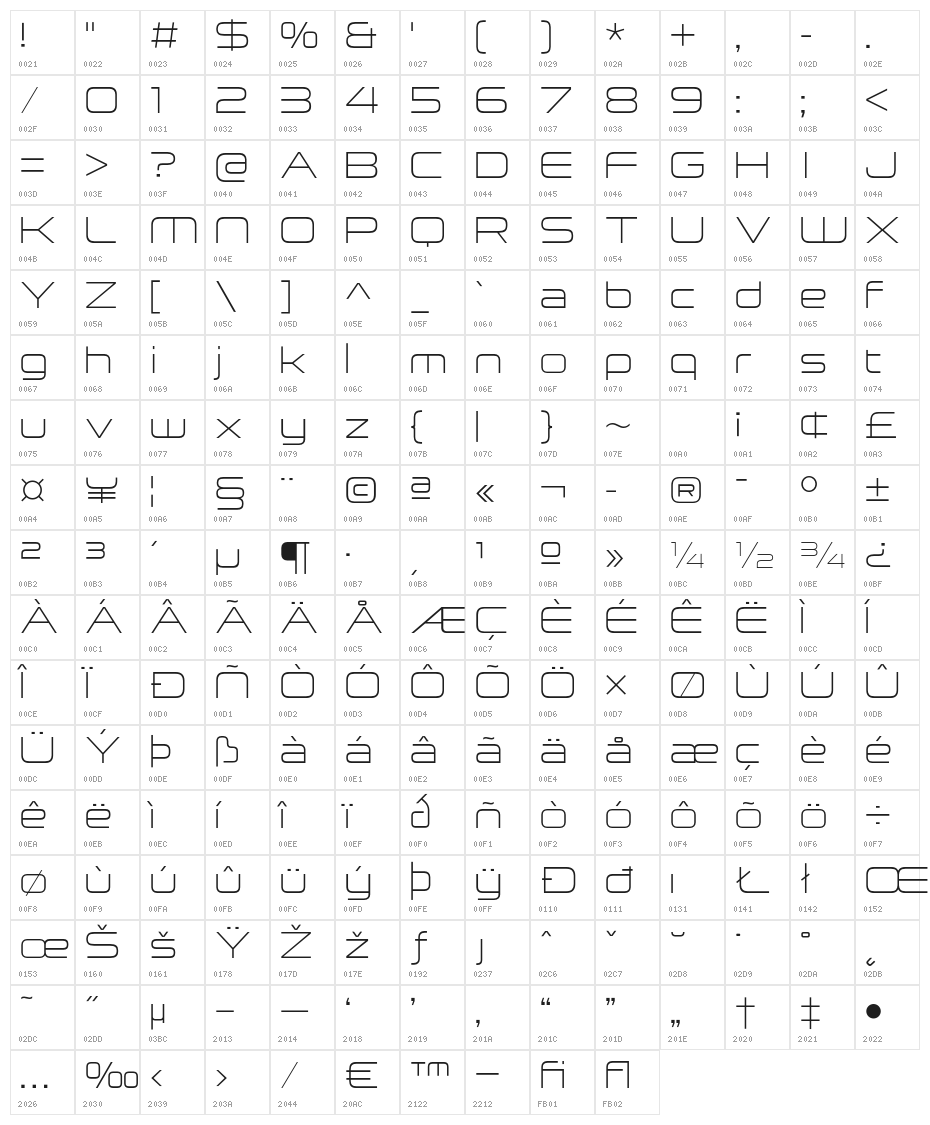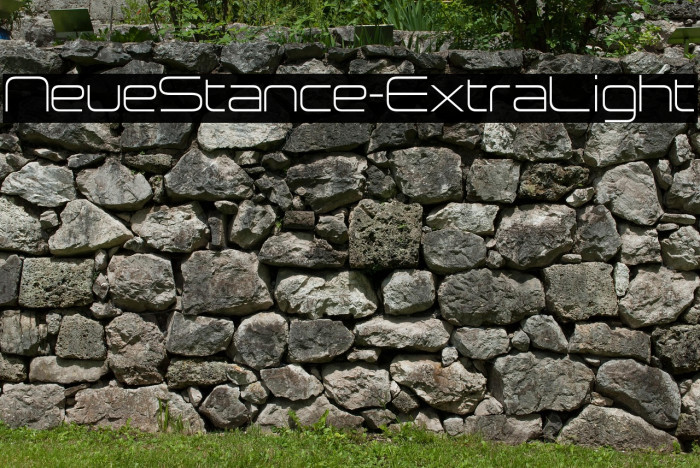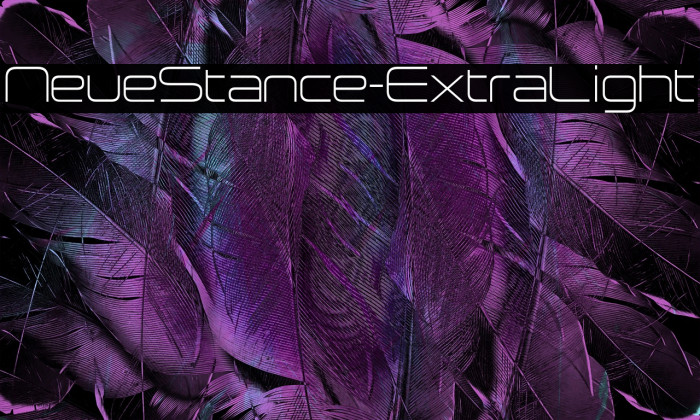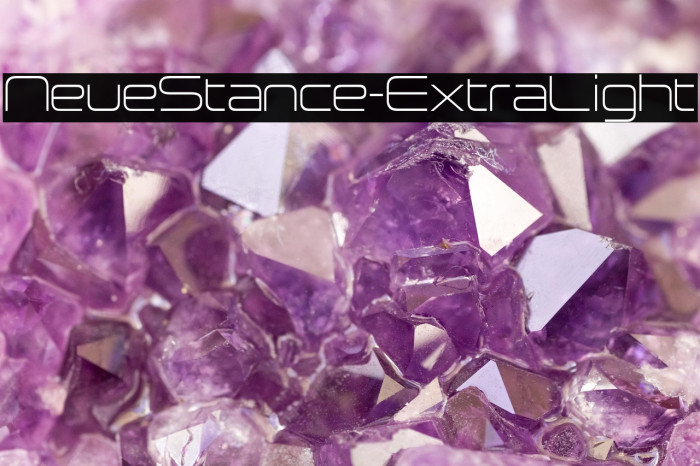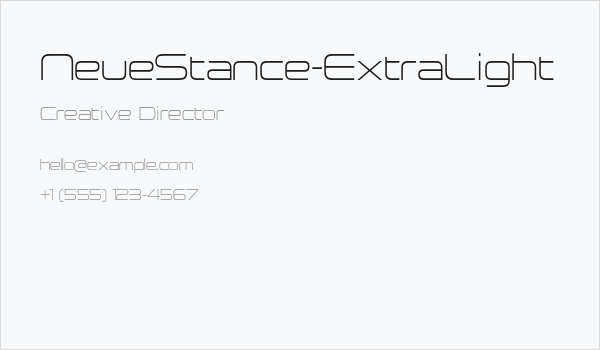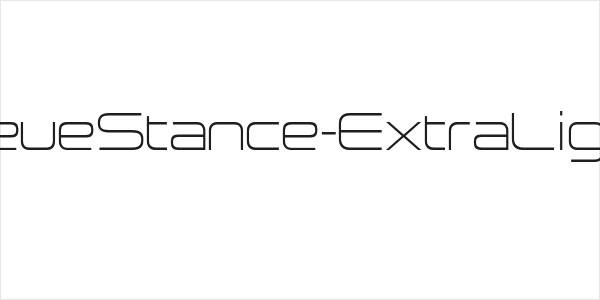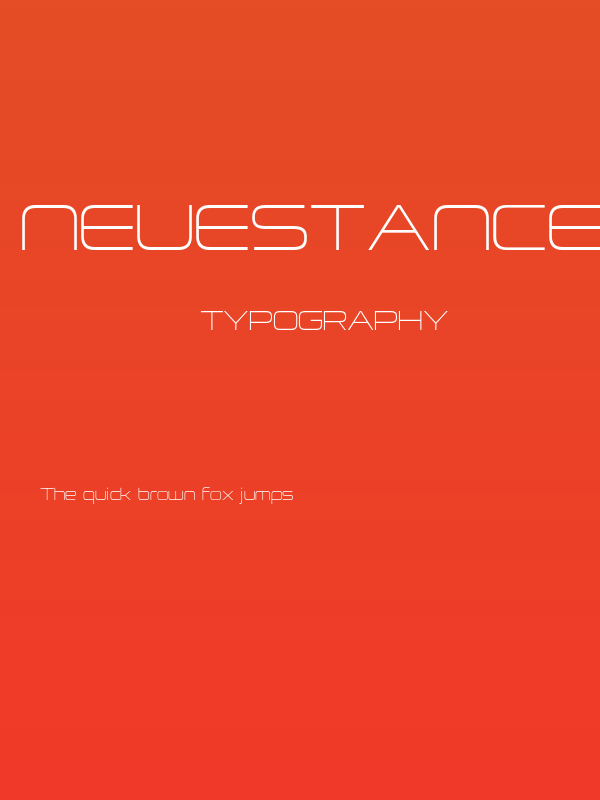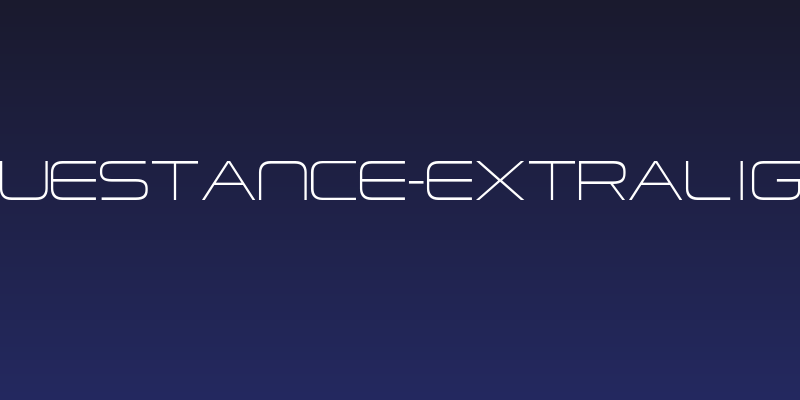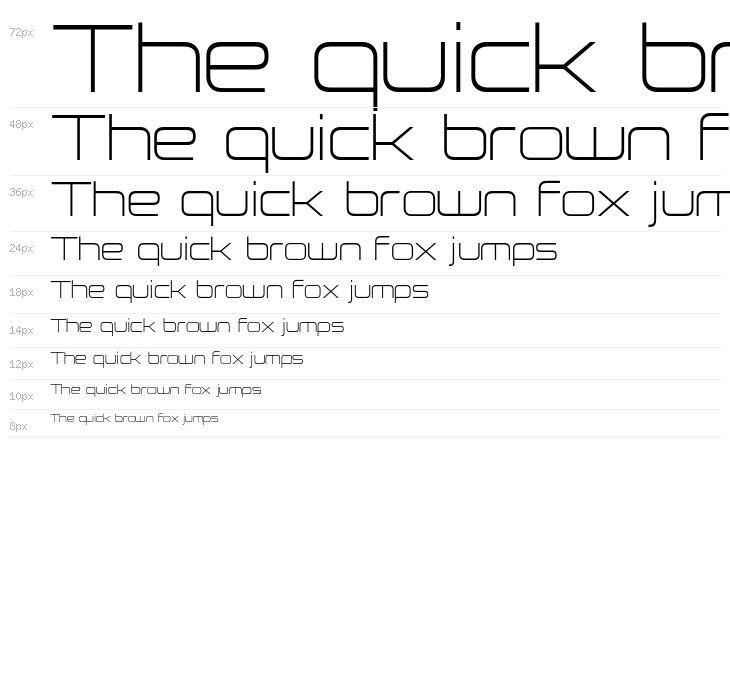
NeueStance-ExtraLight Font
NeueStance-ExtraLight Description
This font features a sleek, modern design with a minimalist aesthetic. The characters are constructed with clean, geometric lines, giving it a futuristic and technical appearance. The uppercase and lowercase letters maintain a consistent height, contributing to its uniform look. The numerals and special characters follow the same design principles, ensuring a cohesive style throughout. Its thin strokes and open counters enhance readability while maintaining an elegant and sophisticated feel.
| Proposed Projects | Ideal for tech branding, modern web design, futuristic posters, and minimalist logos. |